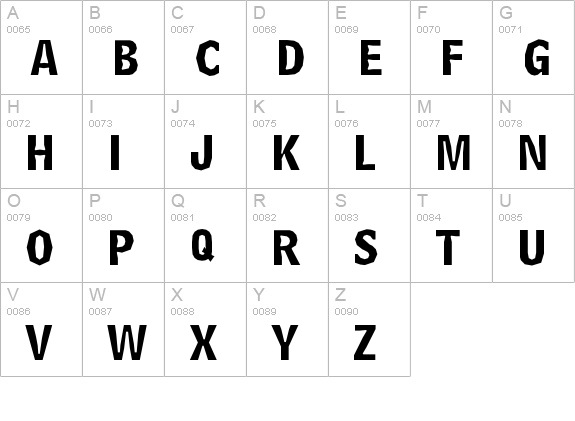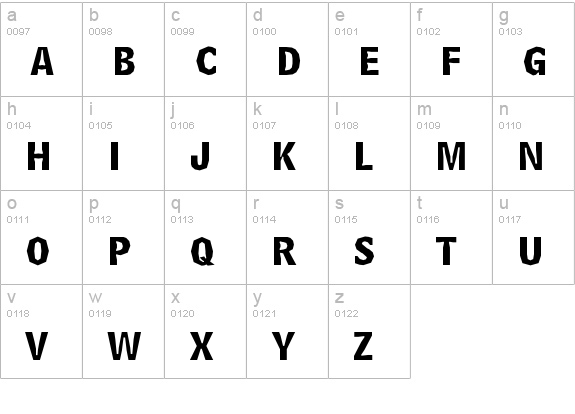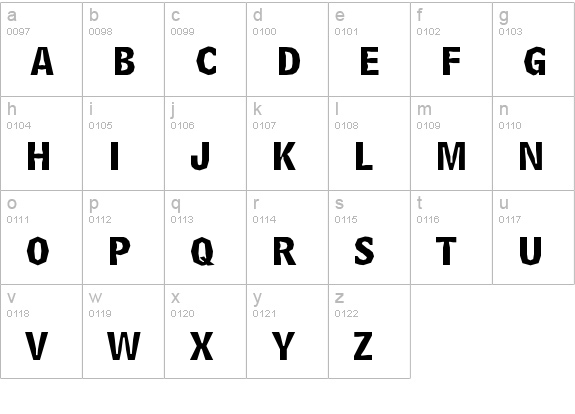
Delinquent Caps Font Details
Delinquent Caps font is a rebellious and edgy typeface that exudes a sense of defiance and boldness. Its sharp angles and jagged edges give it a distinct and non-conformist look, making it perfect for projects that require a touch of attitude. This font is ideal for creating eye-catching headlines, posters, and branding materials that want to stand out from the crowd. What's even better is that Delinquent Caps font is completely free to download at FontsMarket.com. Whether you're a designer looking to add a rebellious touch to your work or just someone who appreciates unique and striking typography, this font is sure to make a statement. Download it now and unleash your creativity with Delinquent Caps font!